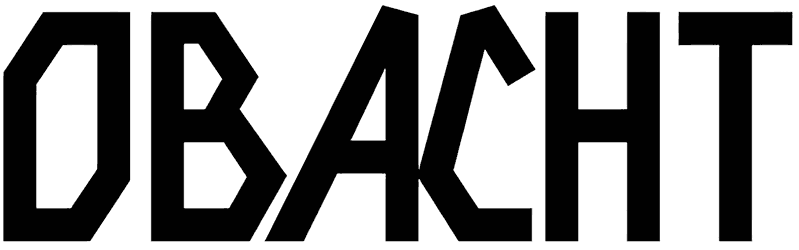
Obacht Font
Designed byHubert Wedel
If you want to design high-end graphic content that is impossible to ignore for the audience, a magical display font such as Obacht would be really helpful. This all-caps polygon font can bring a sense of dynamic, jauntiness, vivacity, or tenderness to your artwork, including posters, logos, video game brochures, packaging, or web pages.